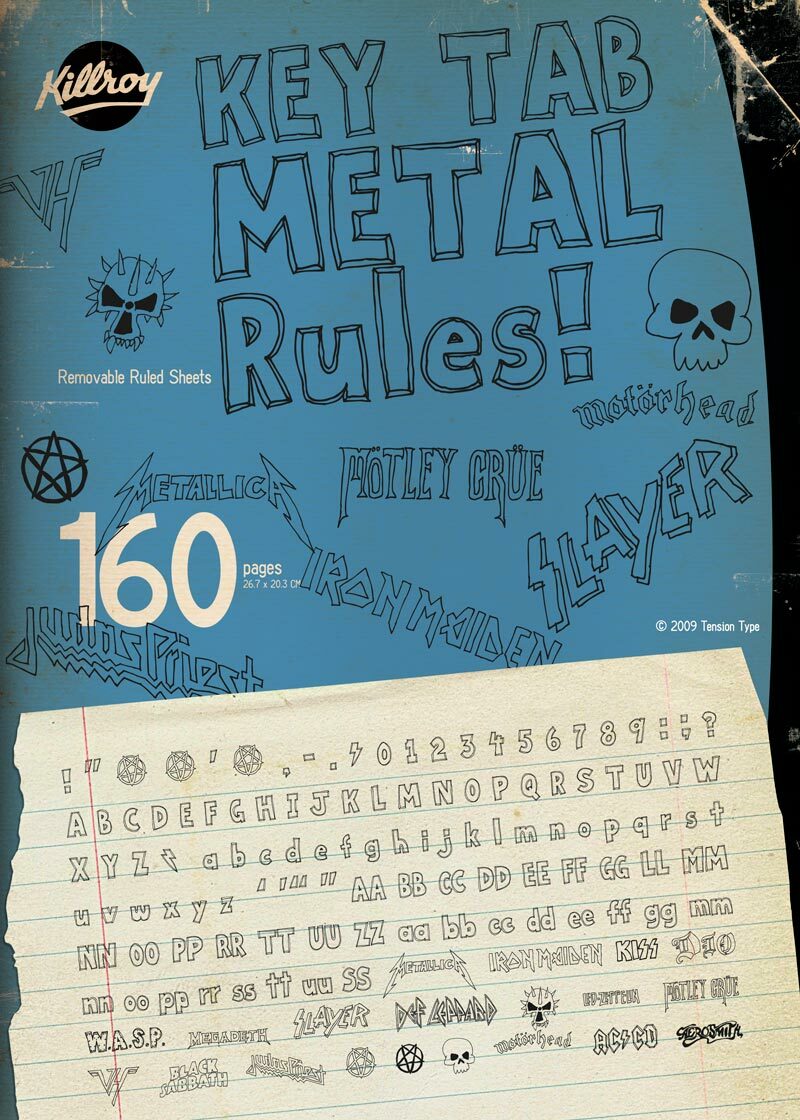
Key Tab Metal by Michael Tension is a free cartoon display font with loose, hand-drawn outlines and tall, uneven letterforms. Stroke widths shift from letter to letter, and the doubled contours give the lettering the look of a quick ink sketch.
Children's posters are its strongest setting, especially when the artwork shares its wobbly lines and playful scale. It also fits comic covers, game graphics, and casual event merchandise with an illustrated approach. It is especially convincing when lettering becomes part of the illustration.